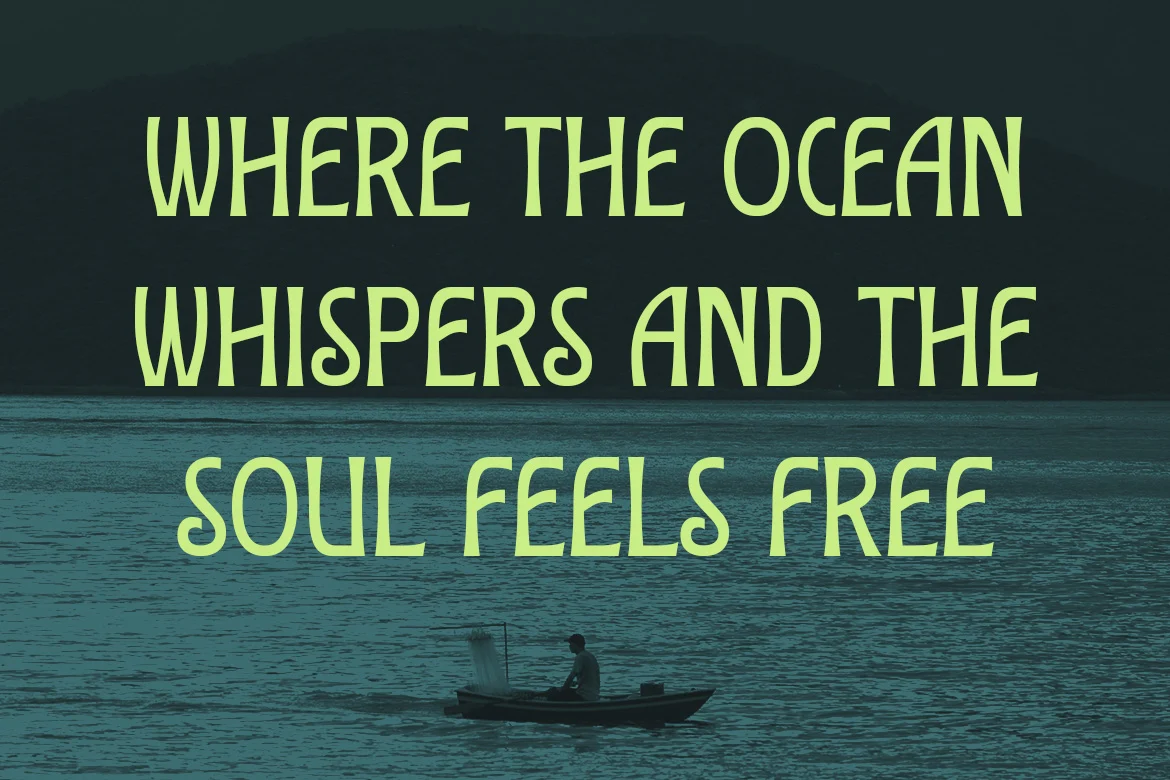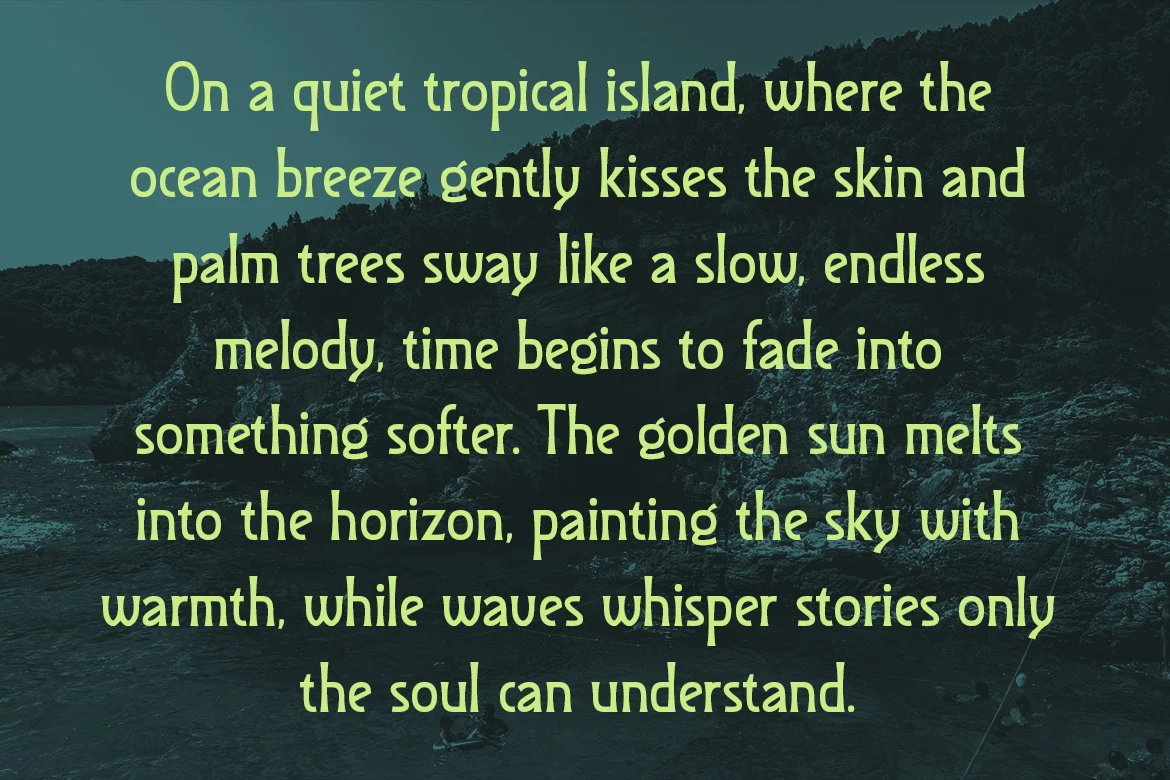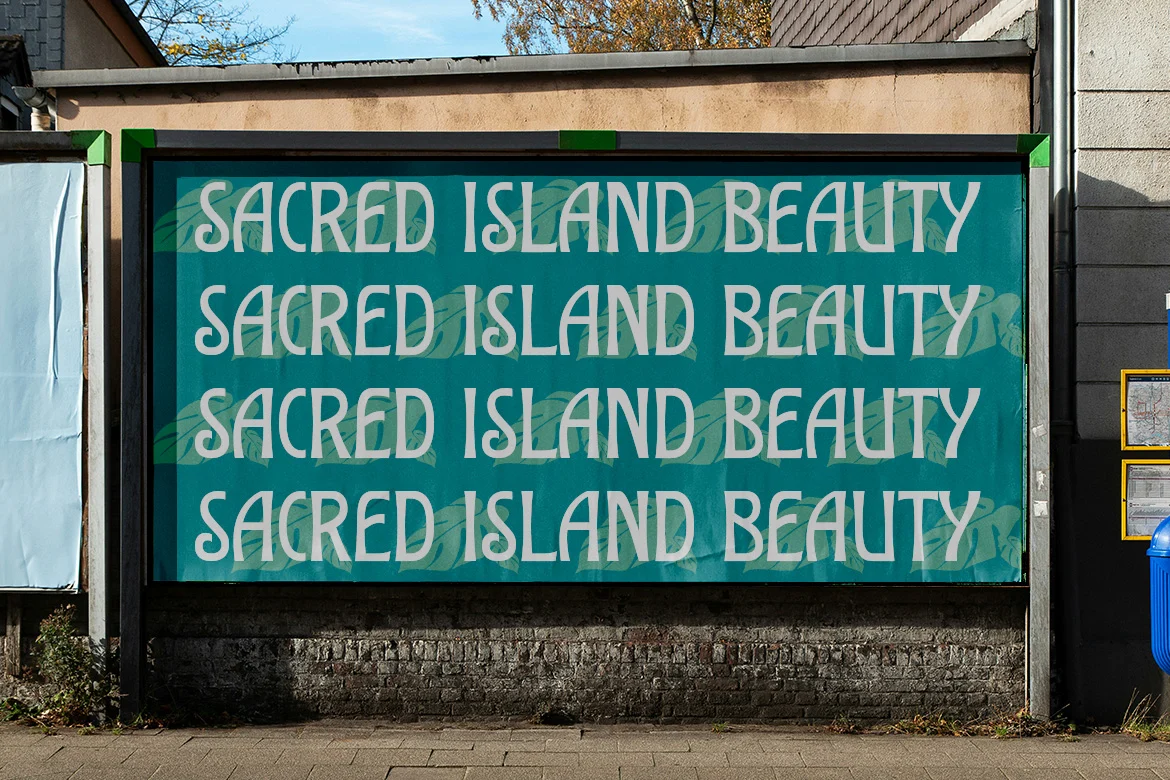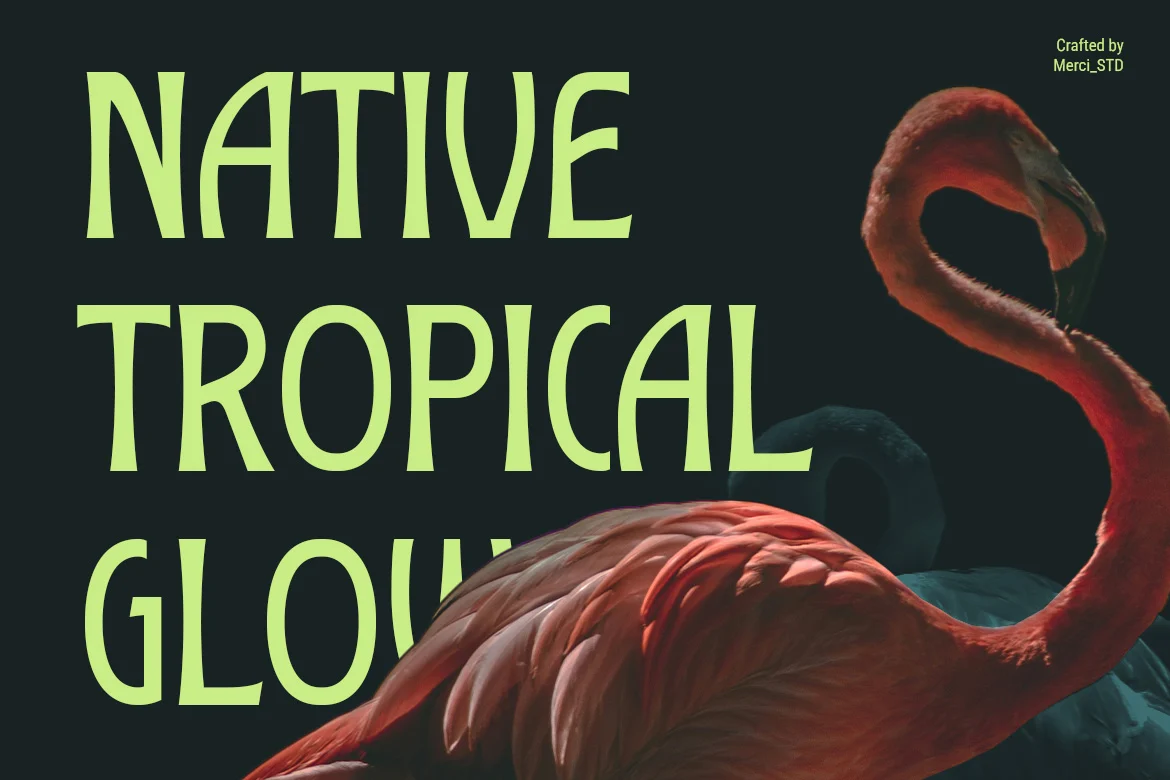
Tropiks – Vintage Tropical Display Font
Tropiks is a vintage tropical display font inspired by summer vibes, exotic destinations, and retro tropical aesthetics. Its tall and unique letterforms create a warm, relaxed, and stylish visual identity perfect for beach branding, summer posters, tropical packaging, café menus, and resort promotions.
This font blends vintage charm with tropical freshness for standout creative projects.
- Unique Hand-Drawn Style